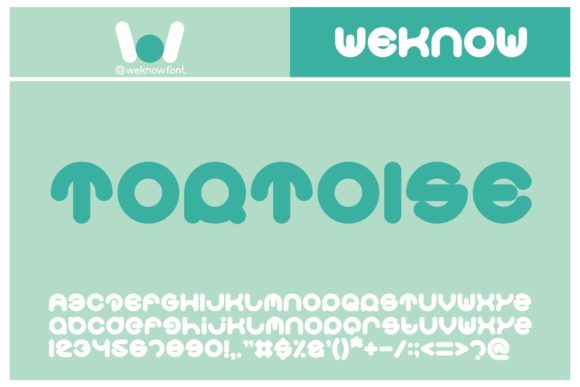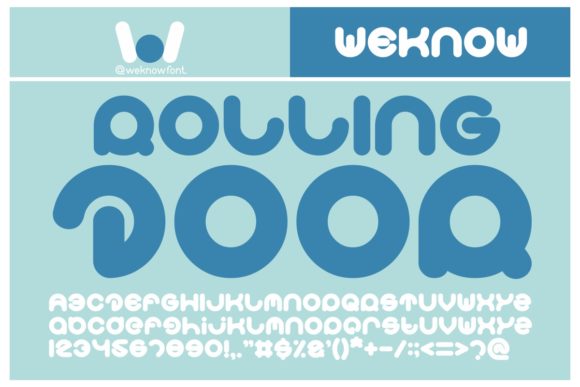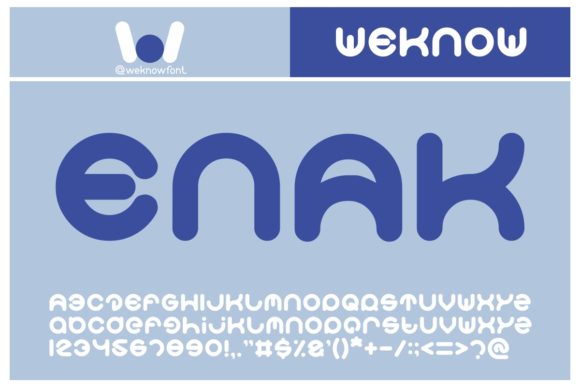
Introduction to Smiley Turtle Font
Smiley Turtle is a cool and techno looking display font.
It will look stunning on any poster flyer or print Use this font for your designs and explore its endless possibilities.
Smiley Turtle Font offers exceptional quality and versatility, making it a valuable addition to your design toolkit. Whether you’re creating for personal projects or commercial use, Smiley Turtle Font delivers professional results.